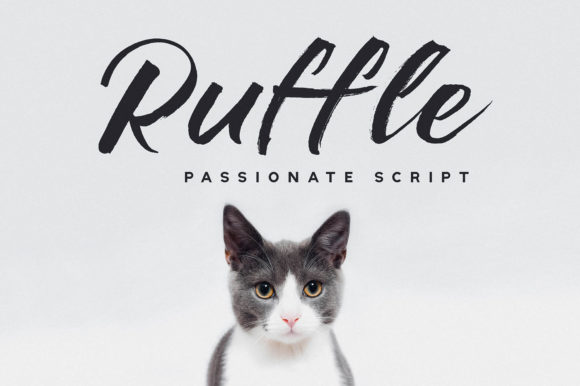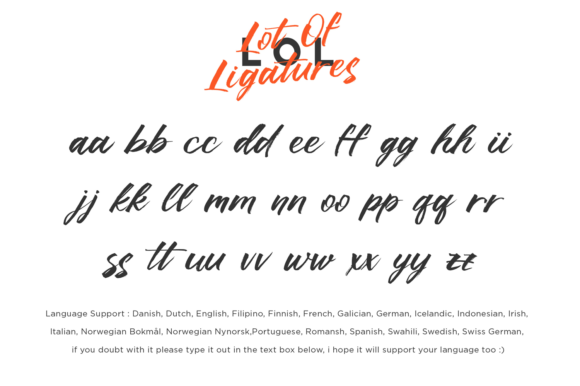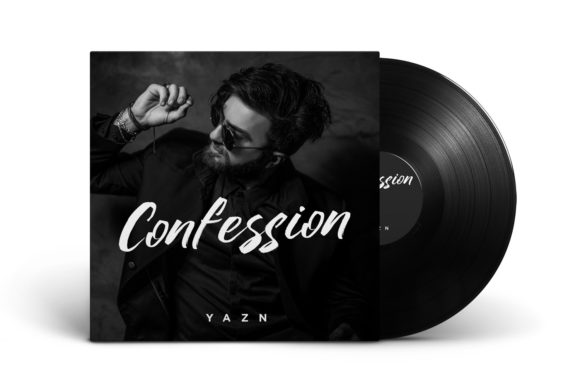
Ruffle Font
About Ruffle Font
Ruffle is a flowing and bold handwritten font that’s great for delivering any message with confidence, authenticity and charm. It will elevate a wide range of crafting ideas, from cards, to branding, labels and much more.